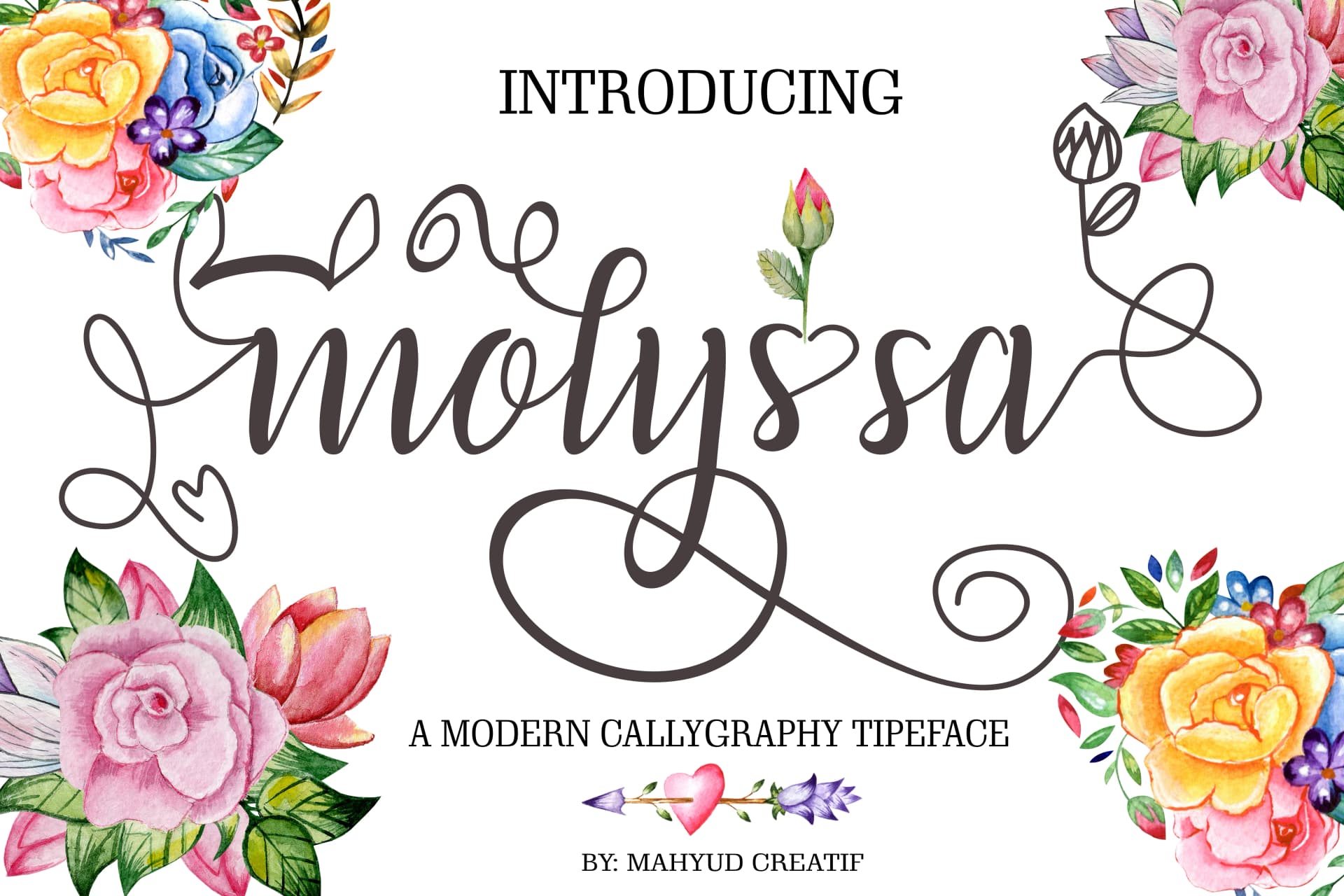
Molyssa by maydhen studio is a hand-designed modern calligraphy script that brings contemporary sophistication to creative projects. The font masterfully balances refined letterforms with a natural, organic flow that feels genuinely handwritten without sacrificing legibility across various applications.
This versatile script shines on wedding invitation suites, where its flowing lines add an unmistakable elegant touch to formal announcements and save-the-date cards. It's equally compelling on luxury cosmetics and beauty packaging, lending a distinctly premium feel to artisan skincare labels and boutique beauty brands. Event designers and stationery specialists will appreciate how well it translates to sophisticated menu cards, programs, and formal invitations. The script also excels for lifestyle brands creating social media content, boutique retail signage, and personalized greeting cards where that hand-lettered aesthetic adds genuine character.
Designed with careful attention to handwritten nuance, Molyssa captures the inherent warmth of traditional calligraphy while maintaining the consistency and reliability needed for professional design applications. Whether you're establishing a luxury brand identity or creating special occasion materials, the font's contemporary elegance adapts seamlessly to different contexts without ever feeling overwrought. Get Molyssa on Creative Fabrica and give your projects the refined, personal touch this thoughtfully crafted script delivers.
Molyssa Font is a script font that shines as a display or heading face. Pair it with a clean sans-serif or serif font for body text β the contrast creates a clear hierarchy while the two styles stay balanced and easy to read.